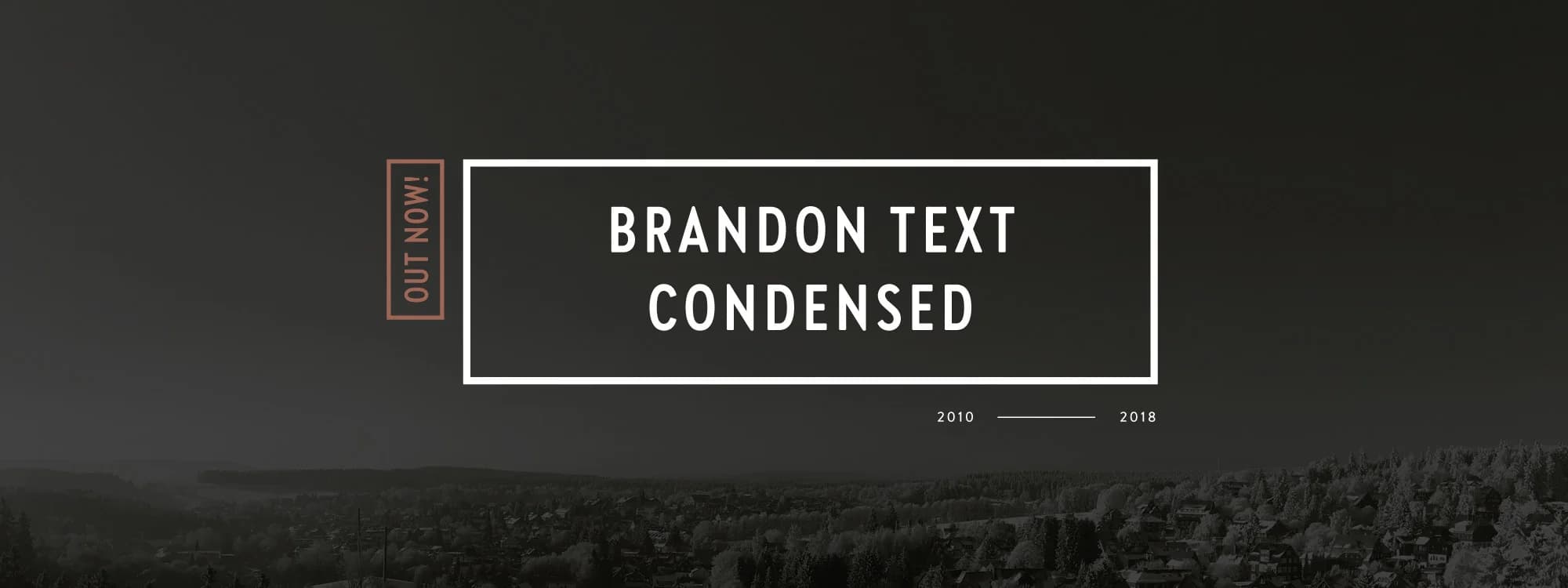
Brandon Text Condensed
A condensed geometric sans from Hannes von Döhren, drawn for legibility in tight columns and space-constrained settings.
Spun off from the Brandon Grotesque and Brandon Text families, this condensed cut retains the geometric structure and warm proportions of the original while narrowing the letterforms for use in tighter measures. The family likely runs across multiple weights with matching italics, making it functional for editorial layouts, UI copy and branding where column width is at a premium. It sits in familiar geometric territory without distinctive features that separate it from comparable condensed sans families.
Brandon Text Condensed is a geometric sans-serif in the tradition of Futura and Gill Sans, here narrowed into condensed widths optimised for text use at smaller sizes.